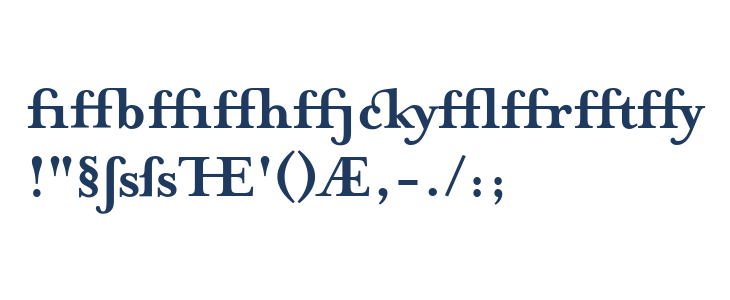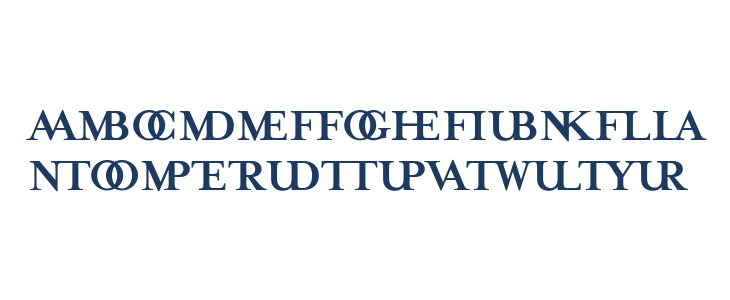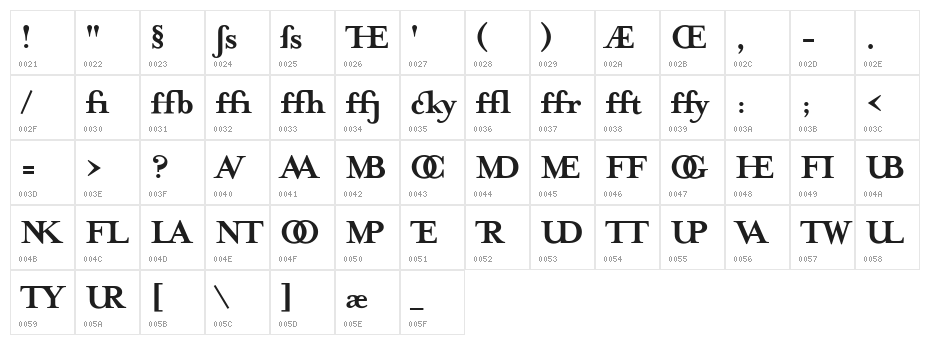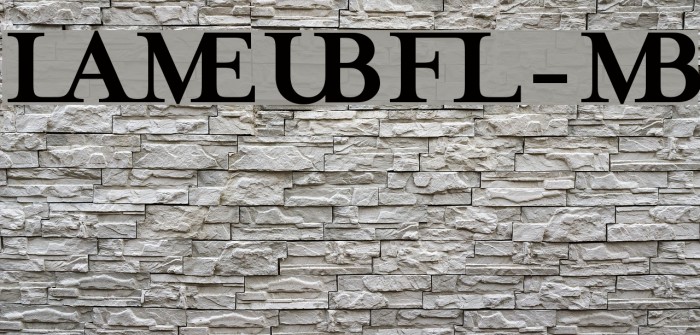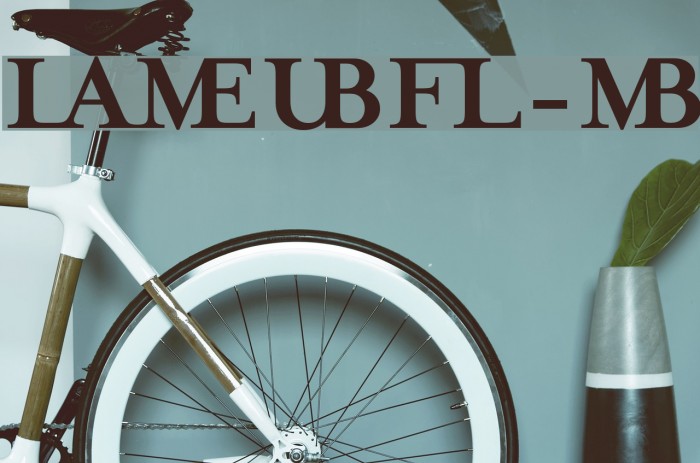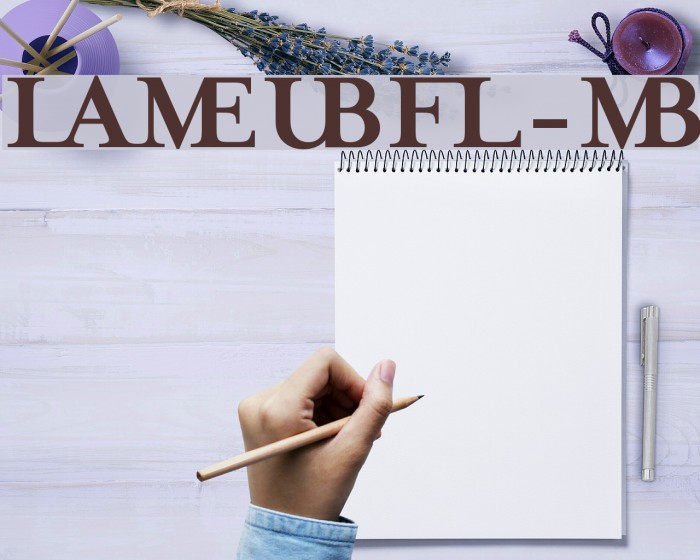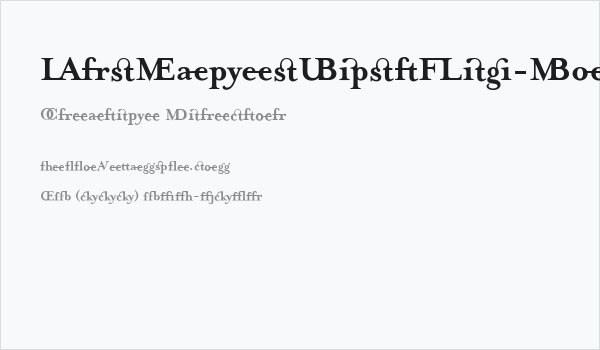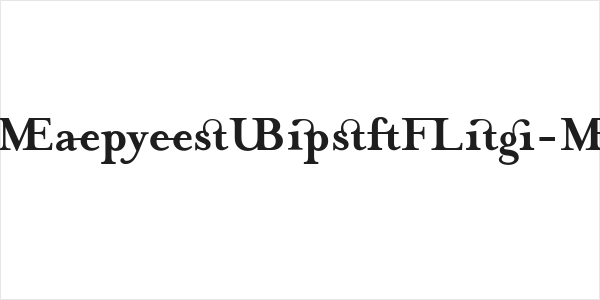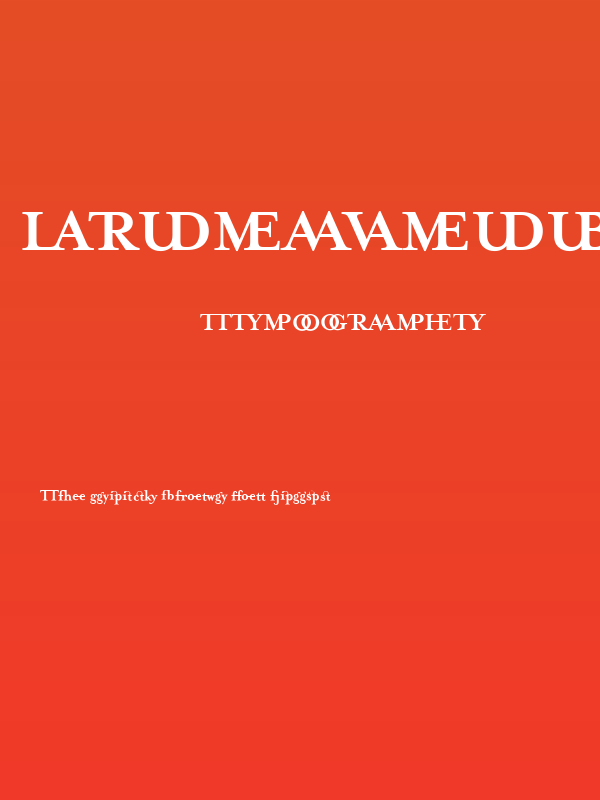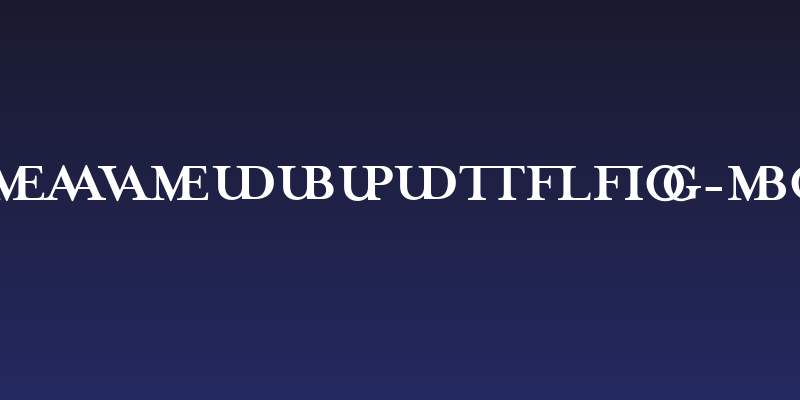
MrsEavesJustLig-Bold Font
MrsEavesJustLig-Bold Description
This font exhibits a classic serif style with a bold weight, characterized by its elegant and sophisticated appearance. The serifs are pronounced, adding a touch of traditional charm, while the overall structure maintains a modern sensibility. The uppercase letters are well-proportioned, with a slight contrast in stroke thickness that enhances readability. The lowercase letters feature distinctive ligatures, providing a unique and artistic flair. The numerals and special characters are designed to complement the alphabet, ensuring a cohesive look across all text. This font is versatile, suitable for both formal and creative applications.
| Use Case | Headlines, Logos, Editorial design |
| Proposed Projects | Ideal for book covers, editorial design, branding, and high-end packaging. |